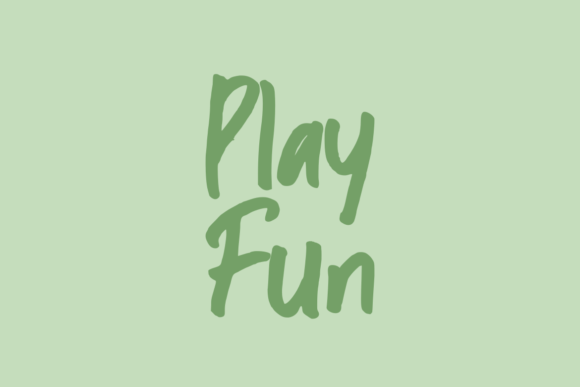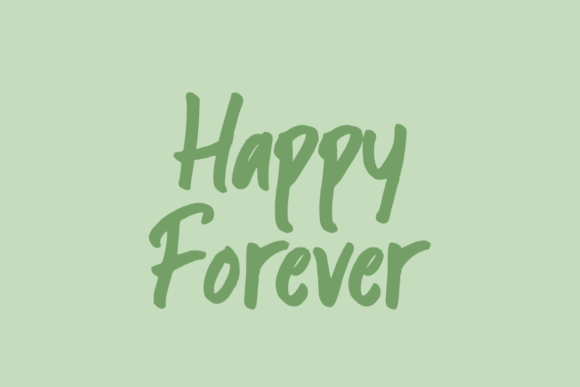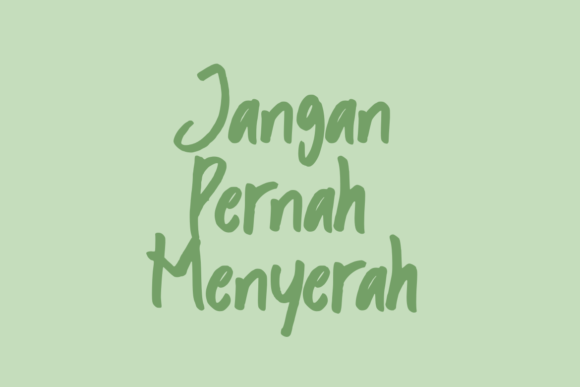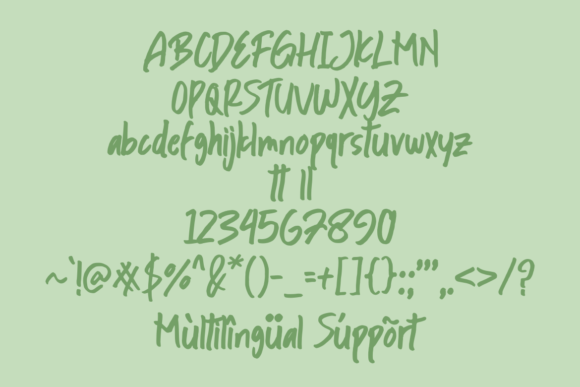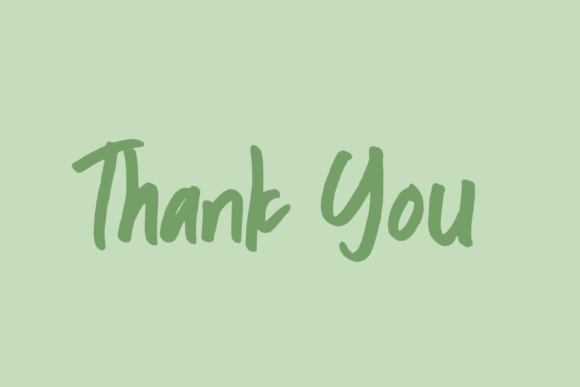
Introduction to Ramban Bayem Font
Remember that moment when you’re working on a creative project and you’re stuck on the perfect font? The one that will elevate your design and make it truly pop? For designers, finding that perfect font can be a game-changer. And, trust us, you’re in luck because we’ve discovered just the thing – the Ramban Bayem Font.
This adorable handwritten font is more than just a pretty face; it’s a design game-changer. With its high-quality, quirky charm, the Ramban Bayem Font is sure to add a joyful touch to any project. Whether you’re working on a logo, a social media graphic, or a website, this font is the perfect addition to take your design to the next level.
Key Features of Ramban Bayem Font
- High-quality, free font suitable for creative projects, offering a unique and stylish design.
- Transparent background, allowing for easy customization and versatility in design applications.
- Comes in a single size, making it easy to use across different design projects and applications.
- High-resolution font, ideal for use in digital and print media, including posters, flyers, and brochures.
- Designed as a design resource, perfect for artists, designers, and writers looking for a unique and creative font.
Honest Review: Ramban Bayem Font
I recently stumbled upon the Ramban Bayem Font, and I must say it’s a fantastic addition to any designer’s toolkit. The high-quality font is perfect for creative projects that require a unique and stylish touch.
- ✨ Unique design style: The Ramban Bayem Font has a distinctive and elegant design that sets it apart from other fonts.
However, I do have a few minor quibbles with the font. ⚠️ Some of the letters may not be as clear at smaller font sizes, and the font may not be suitable for large blocks of text.
Overall, I’m really impressed with the Ramban Bayem Font. It’s a high-quality design resource that’s perfect for adding a touch of elegance to your creative projects.
Common Use Cases for Ramban Bayem Font
Ramban Bayem Font is suitable for various design projects, including business cards, brochures, and posters. Its high-quality design and transparent background make it an ideal choice for creating a professional-looking design resource.